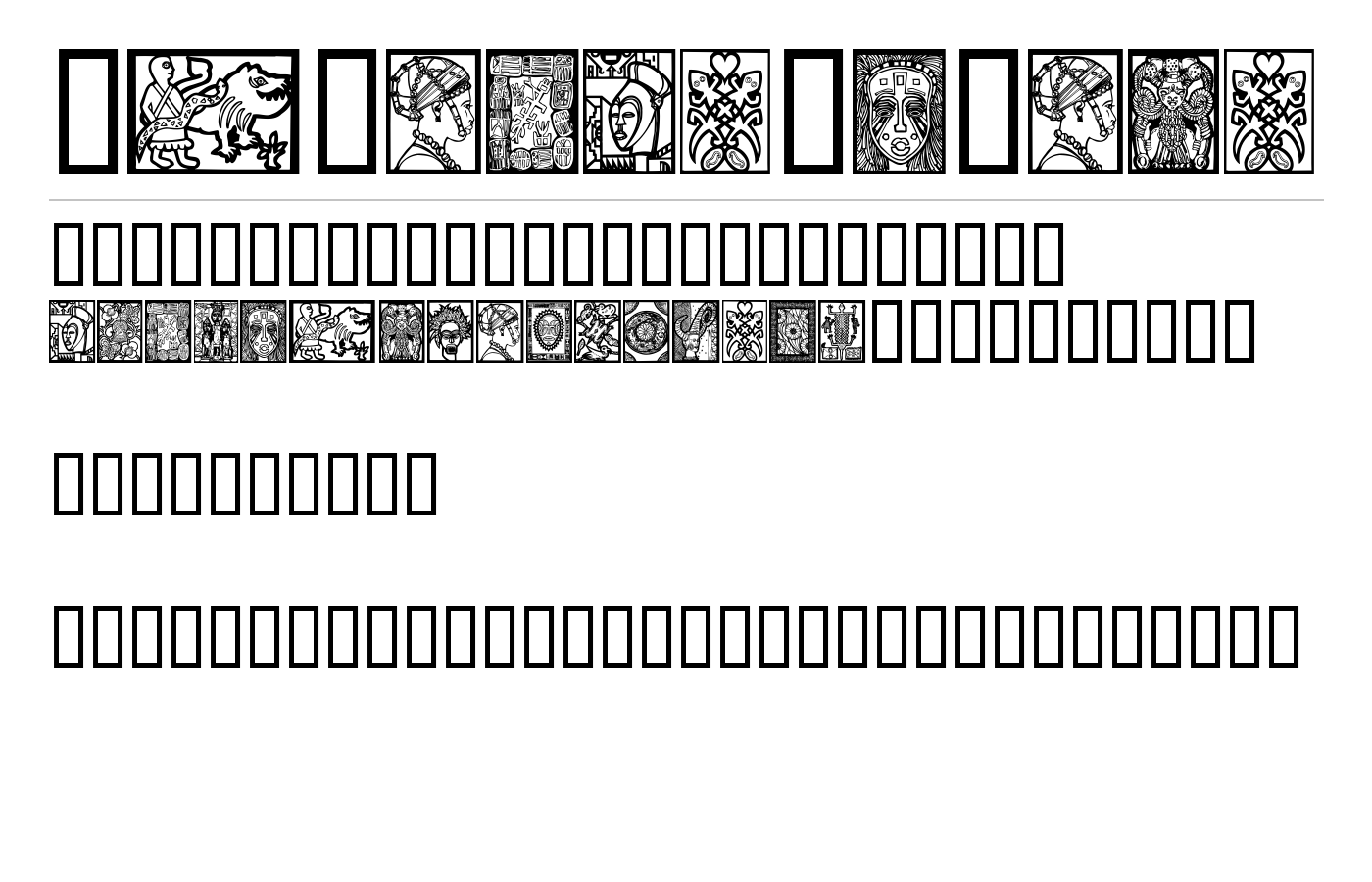
AfricanDesign Font is an ornamental symbol typeface inspired by traditional African art, featuring intricate, detailed icon-like illustrations rather than conventional letters. This font brings a rich cultural and artistic vibe, making it ideal for unique branding, cultural projects, or decorative purposes where a bold, ethnic statement is desired. Its visual complexity works best for logos, posters, and packaging that aim to evoke heritage and artistic craftsmanship.
AfricanDesign Font
About AfricanDesign Font